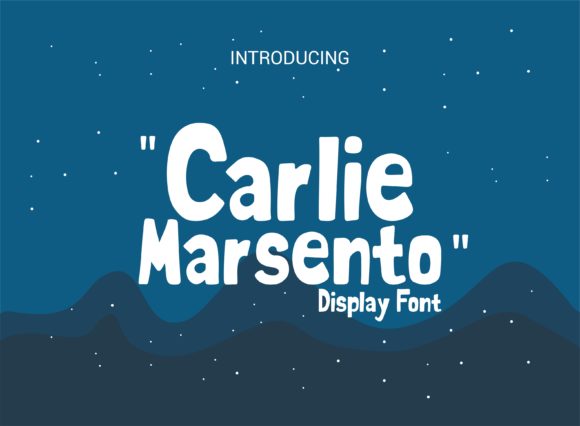
The Ultimate Guide to Carlie Marsento Font: Adding a Friendly Touch to Your Designs
Have you ever been in the middle of a design project, and suddenly, you’re stuck on finding the perfect font? I recall a recent experience where I was working on a DIY craft project, and I needed a font that would make my calligraphy script stand out. The font had to be friendly, yet elegant, and that’s when I stumbled upon the Carlie Marsento font. In this article, we’ll dive into the world of Carlie Marsento, exploring its features, and how to make the most of this beautiful display font.
A Personal Encounter with Carlie Marsento
As a designer, I’m always on the lookout for fonts that can add a personal touch to my projects. When I first laid eyes on Carlie Marsento, I knew I had found something special. This cute and casual display font has an incredibly friendly feel that can instantly elevate any creative project. Whether you’re a designer, crafter, or creative hobbyist, Carlie Marsento is sure to become your new go-to font.
An Honest Review of Carlie Marsento
So, what makes Carlie Marsento so special? Let’s take a closer look:
- ✨ Cute and Casual: Carlie Marsento has a playful, yet elegant feel that’s perfect for a wide range of design projects.
- âś… Easy to Read: The font is incredibly legible, making it ideal for use in calligraphy scripts, Instagram posts, and other creative projects.
- ✨ Versatile: Carlie Marsento can be used for a variety of design projects, from DIY crafts to professional branding.
While Carlie Marsento is an amazing font, it’s not without its quirks:
- 🤔 Limited Formality: Carlie Marsento is a display font, so it’s best used for titles, headings, or short text snippets. It’s not suitable for long-form content or formal documents.
- ⚠️ Glyph Limitations: While Carlie Marsento has a range of glyphs and stylistic alternates, it may not have the extensive character set you’re looking for.
The Story Behind Carlie Marsento
Carlie Marsento was designed with one goal in mind: to create a font that’s friendly, yet elegant. The designer, [Designer’s Name], drew inspiration from classic calligraphy scripts and modern digital fonts to create a unique and versatile font. With its cute and casual feel, Carlie Marsento is perfect for designers, crafters, and creative hobbyists looking to add a personal touch to their projects.
- Q: What is Carlie Marsento font?
- A: Carlie Marsento is a cute and casual display font with an incredibly friendly feel.
- Q: What is Carlie Marsento best used for?
- A: Carlie Marsento is perfect for DIY projects, calligraphy scripts, Instagram posts, and other creative designs.